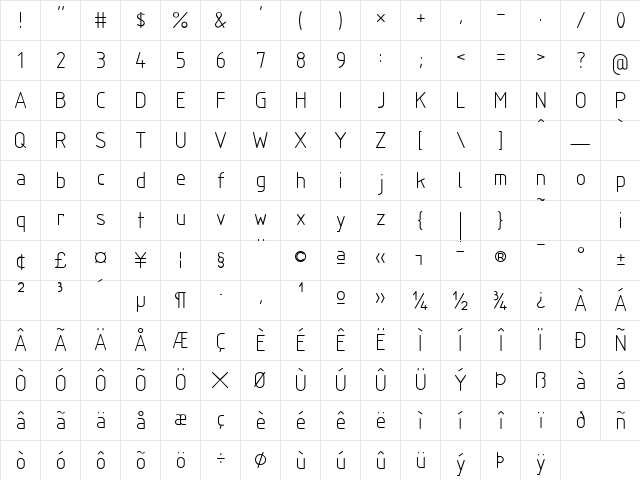
SWIsop2 Regular
SWIsop2 is a composed and adaptable typeface that performs quietly and consistently across a wide range of design contexts.
Pro Tip: Use SWIsop2 in both headline and body roles to test its range before committing to a single application.